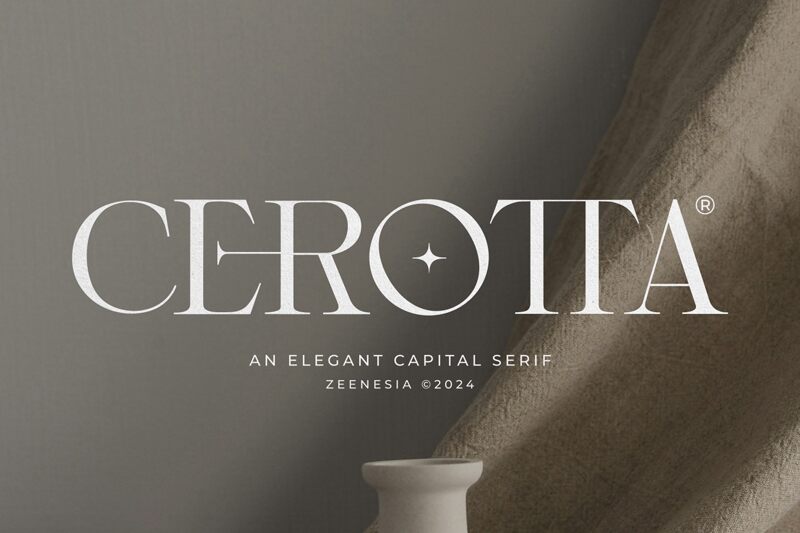
Cerotta font by Zeenesia Studio is a free high-contrast decorative serif display font. It stands out with sculpted, razor-thin hairlines and confident verticals, then surprises with a jewel-like star cut into rounded counters—a tiny glint that reads luxe without shouting. The curves feel polished and inky, the serifs taper to sharp points, and the overall rhythm is elegant yet unmistakably modern.
Using Cerotta, headlines take on a cinematic glow that works beautifully for beauty branding, boutique logos, magazine covers, perfume packaging, event invitations, and high-end posters. This free font loves large sizes and generous tracking, letting that starry counter breathe. For body copy or captions, pair it with a light, unobtrusive sans to keep the spotlight on Cerotta’s shimmering details.